Choose the right embroidery font can change the whole game of your design. A good font makes stitching clean, readable, and professional. Wrong font ruins a design's look even a strong design. In 2026, many embroiderers want free embroidery fonts and compatible with embroidery machines.
Free machine embroidery fonts are helpful for beginners, home users, and small businesses. They save cost and still deliver good results when chosen carefully. This guide shares 20 popular free machine embroidery fonts that work well for machine embroidery and digitizing projects. Each font listed here is known for clean stitching, simple use, and practical value.
Embroidery Machine Fonts are Available for Free
Many embroidery machine fonts are available for free, stitch nicely on fabric. These fonts are already for digitizing, so embroidery machines read them directly without creating any problem. Most free fonts support common formats like BX, PES, DST, and JEF.
Free embroidery fonts include satin, running stitch, applique, and decorative styles. When users choose the correct size and stabilizer, these fonts deliver clean and reliable results for daily embroidery work. Before using any font, always check: - File format compatibility with your machine. - Stitch type (satin, running, applique). - Size limits to avoid thread breaks. Now, let’s look at the most popular free machine embroidery fonts in 2026. BX fonts are popular because they work directly in embroidery software like Embrilliance. You can type text like a normal font, and the software converts it into stitches. ESA fonts are also widely used and come in ready-to-stitch formats. These fonts support many machines and are easy to load. Why they are useful: - Easy editing. - Clean stitch paths. - Beginner friendly. Multiple formats supported. Five Star Fonts offer clean and professional-looking embroidery fonts. These fonts work well for logos, caps, and text designs. They stitch evenly and maintain shape even on thick fabric. Best for: - Business logos. - Shirts and jackets. - Medium size lettering. Applique fonts work best when a design needs bold letters without heavy stitching. This free applique font uses fabric pieces in the letters and secures them with satin or zigzag borders. Because the fill fabric replaces dense stitches, the font reduces stitch count and shortens machine run time. Many embroiderers choose this font for large designs because it keeps the fabric flexible and prevents stiffness. It also helps reduce thread breaks on long runs. Good choice for: - Large lettering on sweatshirts. - Hoodies and fleece blankets. - School and team projects. The Freaky embroidery font features uneven edges and playful letter shapes. The digitizing keeps stitch paths clean even though the font looks irregular. Satin stitches follow smooth curves, which helps the design stitch evenly. This font holds shape well on cotton and blended fabrics and works best at medium sizes. Works well for: - Halloween designs. - Fun quotes and sayings. - Casual embroidery projects. Fun N Funky combines playful letter shapes with balanced stitch density. Each letter keeps enough spacing to avoid thread breaking. The digitizing style supports smooth satin stitches, which helps maintain clean edges. This font stitches well on kids’ garments where comfort matters. Ideal for: - Kids wear. - Craft embroidery. - Decorative text designs. Teachers Pet is a rounded embroidery font with clean stitch flow. The digitizing focuses on readability, even at smaller sizes. The satin stitches stay consistent, which reduces trimming and thread tension issues. This font performs well on uniforms and daily-use items. Best uses: - School uniforms. - Tote bags and backpacks. - Name embroidery. The stacked embroidery font places letters vertically, which helps save horizontal space. Usually digitizers use this style for chest logos and narrow areas. The stitch direction supports even coverage without pulling fabric. This font keeps alignment steady on stable garments. Recommended for: - Polo shirts. - Caps and hats. - Minimal text designs. Racing number fonts feature thick strokes and sharp angles. This free font uses strong satin stitching that holds shape at large sizes. The digitizing supports wide columns, which helps the numbers stay bold and readable. Sports teams often use this font for durability. Common uses: - Team jerseys. - Sports bags. - Event apparel. Baby Kay’s applique fonts focus on smooth borders and accurate placement lines. The fonts include clear tack-down stitches, which help position fabric pieces correctly before final stitching. These fonts reduce thread usage and speed up production. Good for: - Baby clothing. - Quilts. - Decorative lettering. The Wild West font reflects classic western lettering with pointed edges and bold strokes. The digitizing uses stable satin stitches that perform best on firm fabrics. This font requires proper stabilization to keep sharp corners clean. Perfect for: - Western wear. - Cowboy hats. - Vintage-themed designs. Bunnycup fonts are known for careful digitizing and consistent stitch flow. The fonts include clear start and stop points, which helps reduce jump stitches. These fonts suit everyday embroidery work. The Countryside Alphabet font features soft curves and light stitch density. The digitizing focuses on gentle stitch paths that protect fabric texture. This font works well on materials like linen and cotton. Best for: - Farm-themed designs. - Home decor. - Linen projects. Cheri Alphabet combines smooth curves with subtle decoration. The font maintains proper spacing, which helps letters stay readable. Satin stitches follow consistent angles to avoid thread buildup. This font performs best at medium sizes. Used for: - Women’s apparel. - Towels. - Personalized gifts. The Flores Alphabet uses rounded letterforms with even stitch distribution. The digitizing ensures smooth curves and balanced stitch length. This font stitches cleanly on cotton and poly-blend fabrics. Ideal for: - Casual clothing. - Simple quotes. - Craft embroidery. GG Designs offers free embroidery fonts with professional level digitizing. These fonts maintain consistent stitch density and stable underlay, which improves durability during production runs. Many embroiderers use these fonts for repeated projects. Good for: - Commercial embroidery. - Logo text. - Repeated production. The Free Scary Font uses sharp angles and heavy strokes. The digitizing supports firm stitch coverage, which keeps letters bold and visible. This font suits themed embroidery where strong visual impact matters. Common use: - Halloween embroidery. - Costume designs. - Event merchandise. Oma’s Place fonts focus on stitch quality and smooth running. Each font goes through test stitching to ensure clean results. Stitch paths reduce trims and thread jumps. These fonts suit both beginners and professionals. Best for: - Everyday embroidery. - Gifts. - Professional results. Anna is a BX embroidery font that works with compatible software. Users can resize and edit text while keeping stitch integrity. The digitizing adjusts stitch density automatically. This font suits custom text projects. Works best for: - Names. - Monograms. - Custom text. Cinders fonts focus on simplicity and stitch stability. The digitizing avoids excessive density, which helps prevent fabric puckering. These fonts help beginners learn clean stitching. Good choice for: - Beginners. - Practice projects. - Home embroidery. Running stitch alphabets use single-line stitches instead of satin fills. This style reduces stitch count and keeps fabric soft. The font works best on lightweight fabric and stabilizers. Many embroiderers use it for subtle designs. Ideal for: - Lightweight fabric. - Minimal designs. - Simple labeling. Free machine embroidery fonts are a smart choice when selected carefully. Fonts listed above are popular in 2026 because they stitch well, save time, and work with common embroidery machines then no matter you need fonts for clothing, logos, or crafts, these options cover many styles & needs. For professional embroidery digitizing, font matters as much as design. If you want to get clean results, accurate font sizing, and smooth stitching, DigitizingUSA offers expert custom embroidery digitizing services tailored for machine embroidery. From text digitizing to simple and complex designs, DigitizingUSA helps turn ideas into stitch ready files with precision.1. BX Typefaces, ESA Fonts, and File Formats are All Available
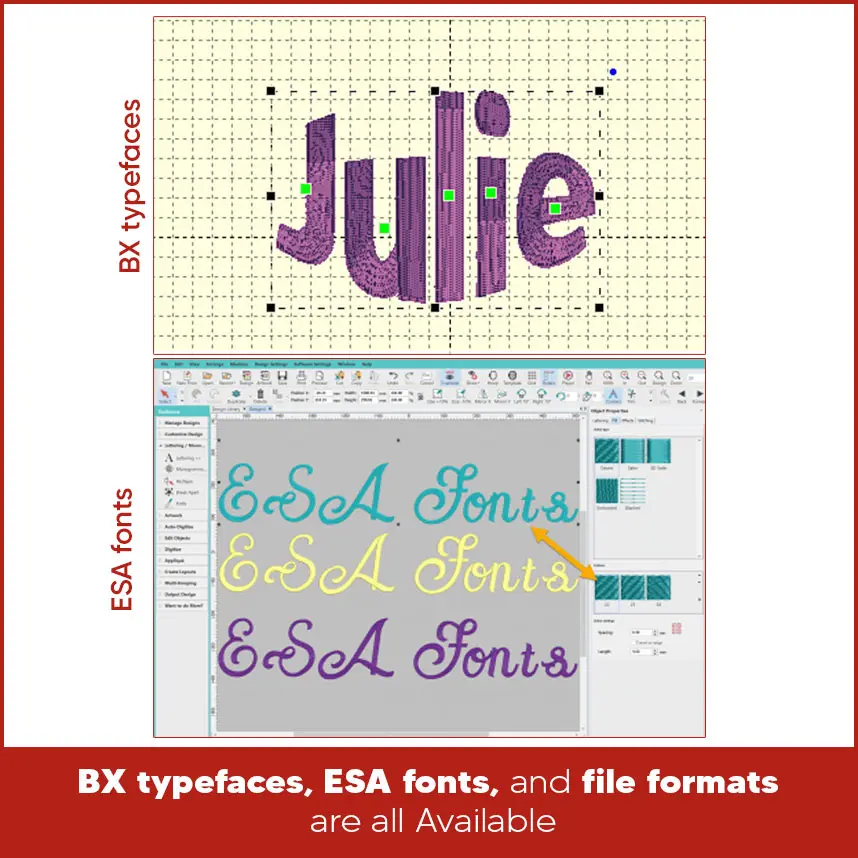
2. Five Star Fonts – Free Fonts for Embroidery Machines
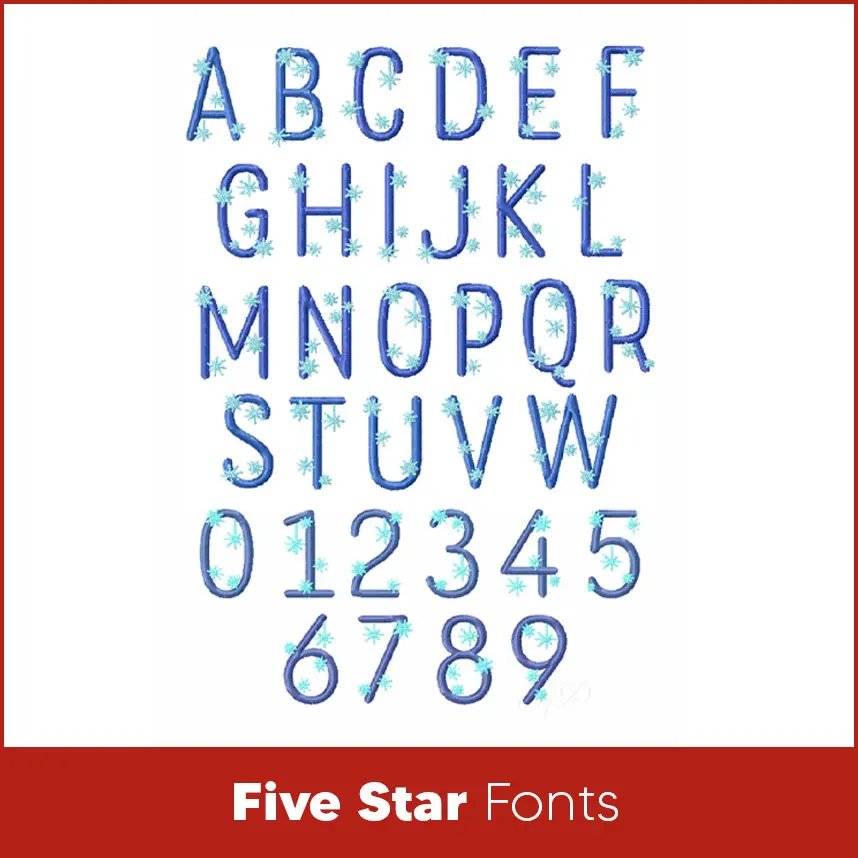
3. The Free Applique Font
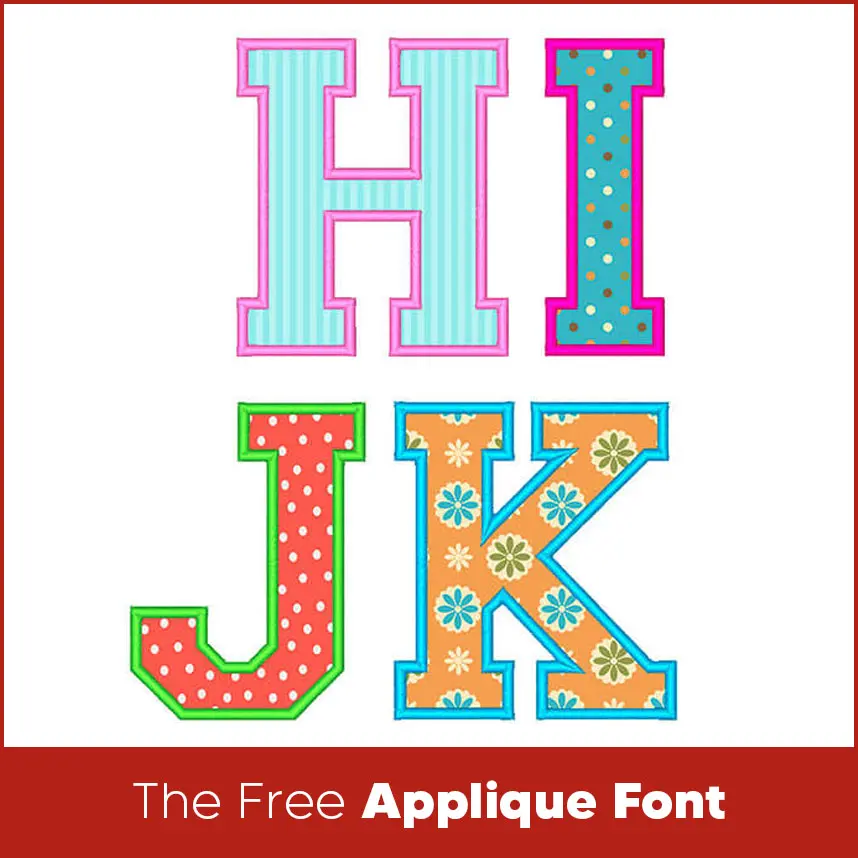
4. The Freaky Embroidery Font
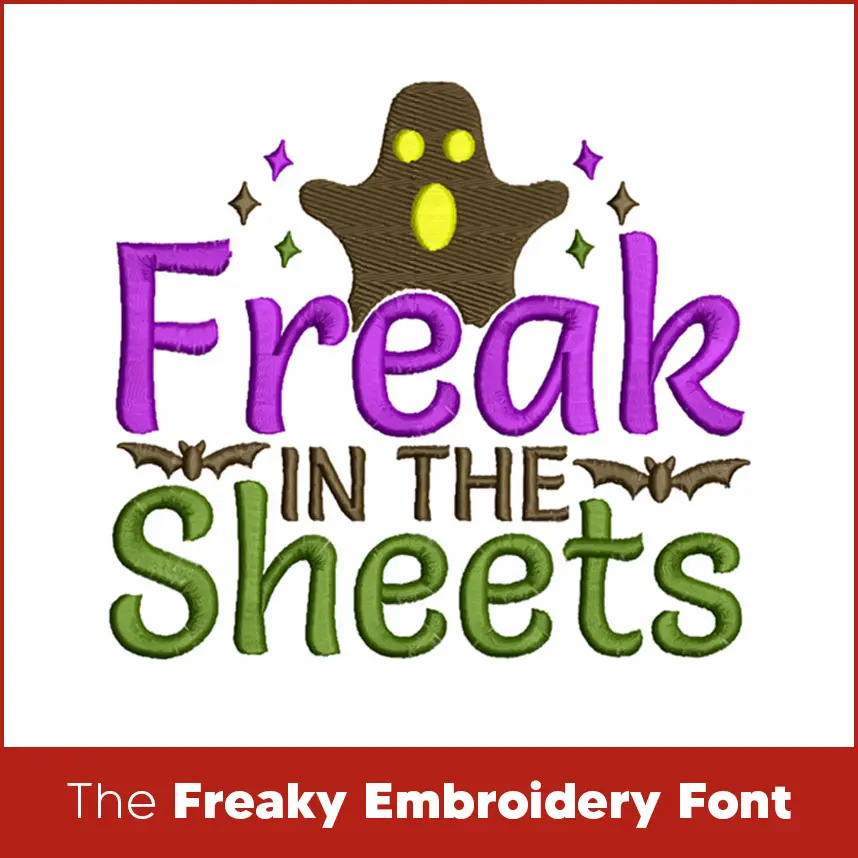
5. The Fun N Funky Font
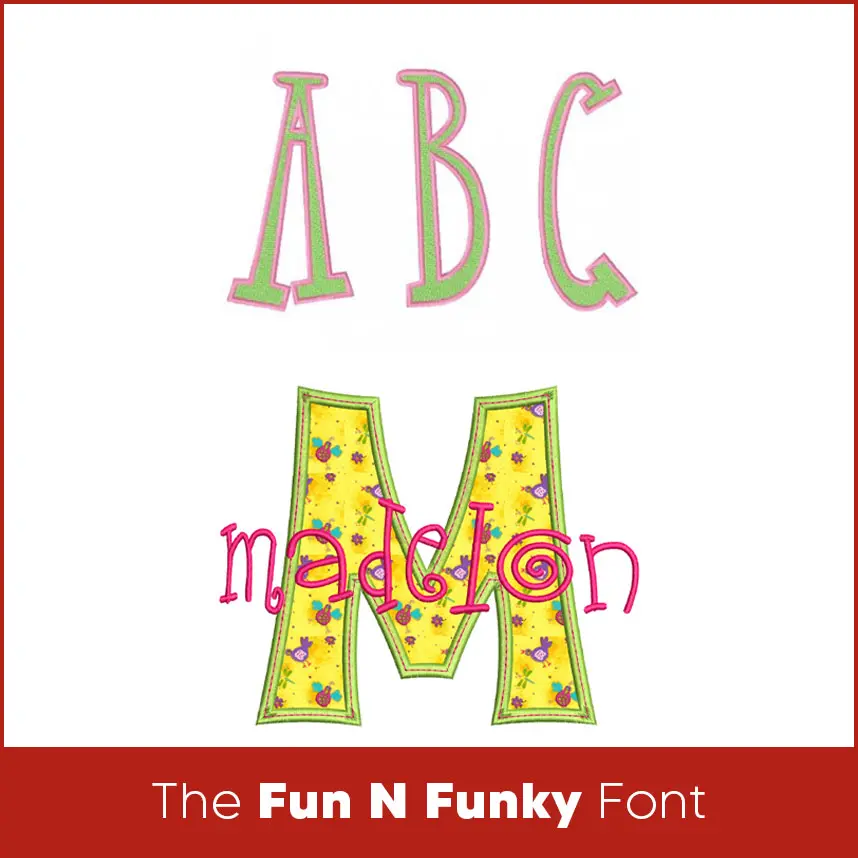
6. Teachers Pet Font
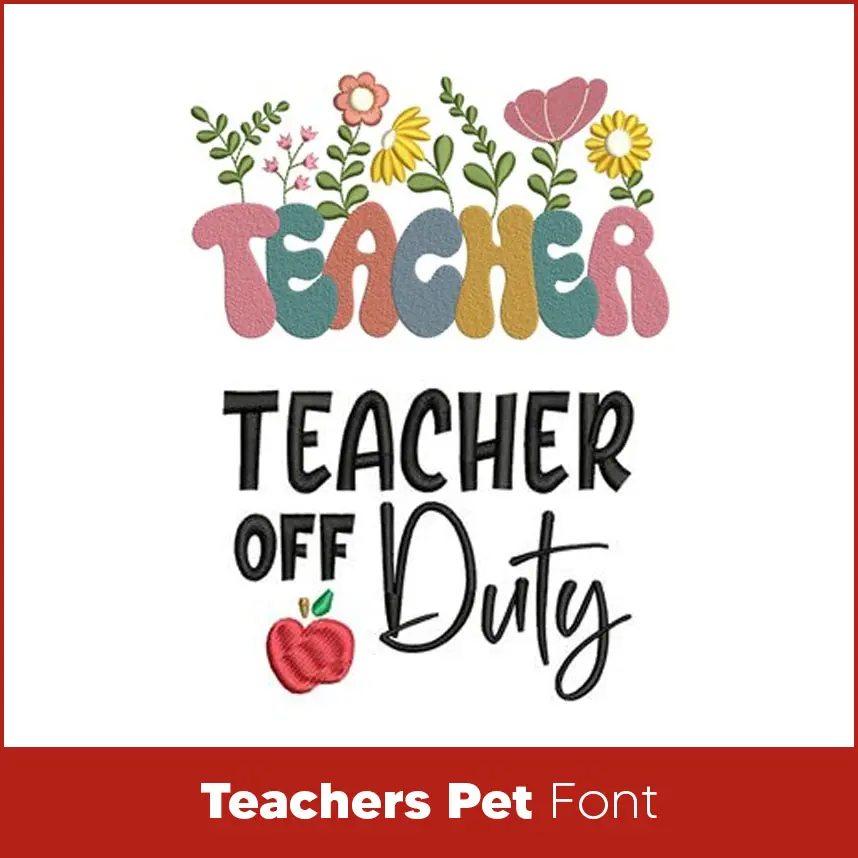
7. The Stacked Embroidery Font
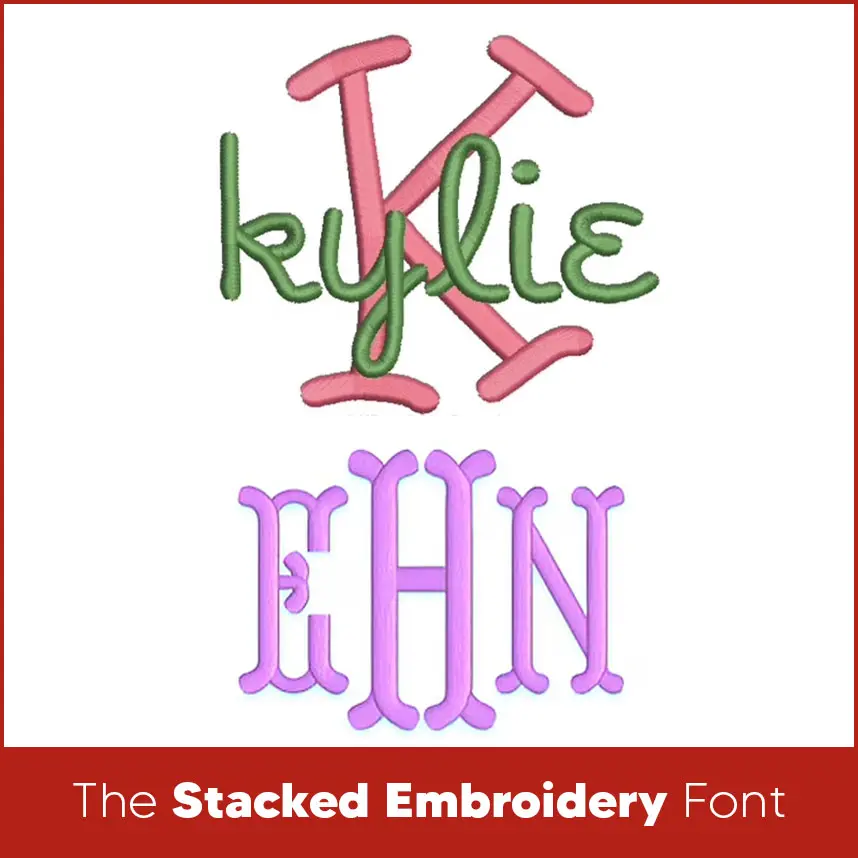
8. The Racing Numbers Free Font
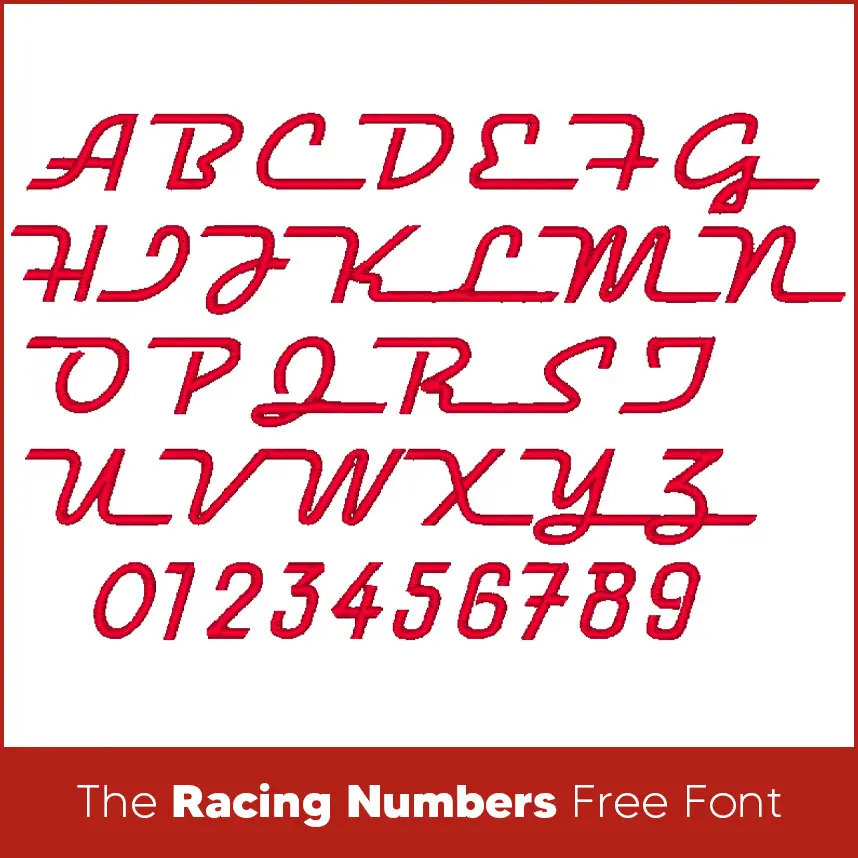
9. Baby Kay’s Appliques
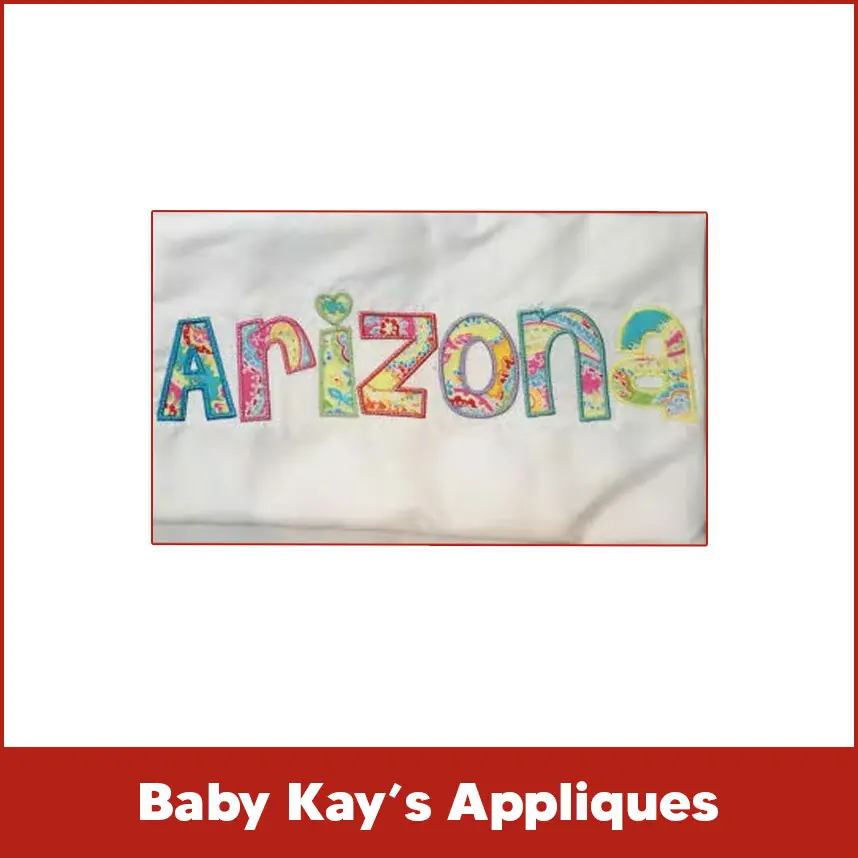
10. The Wild West Font
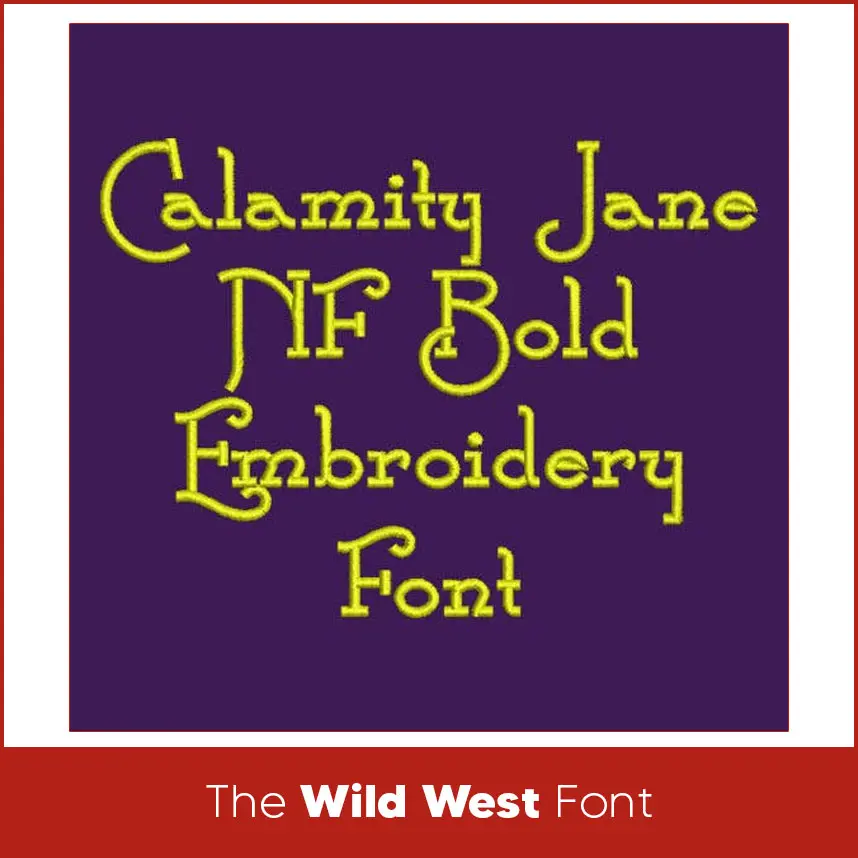
11. Bunnycup Embroidery Free Fonts
12. The Countryside Alphabet Font
13. The Cheri Alphabet Font
14. The Free Flores Alphabet
15. GG Designs Embroidery
16. Free Scary Font
17. Oma’s Place Free Embroidery Fonts
18. Anna Free BX Font
19. Cinders Embroidery Designs
20. Running Stitch Alphabet